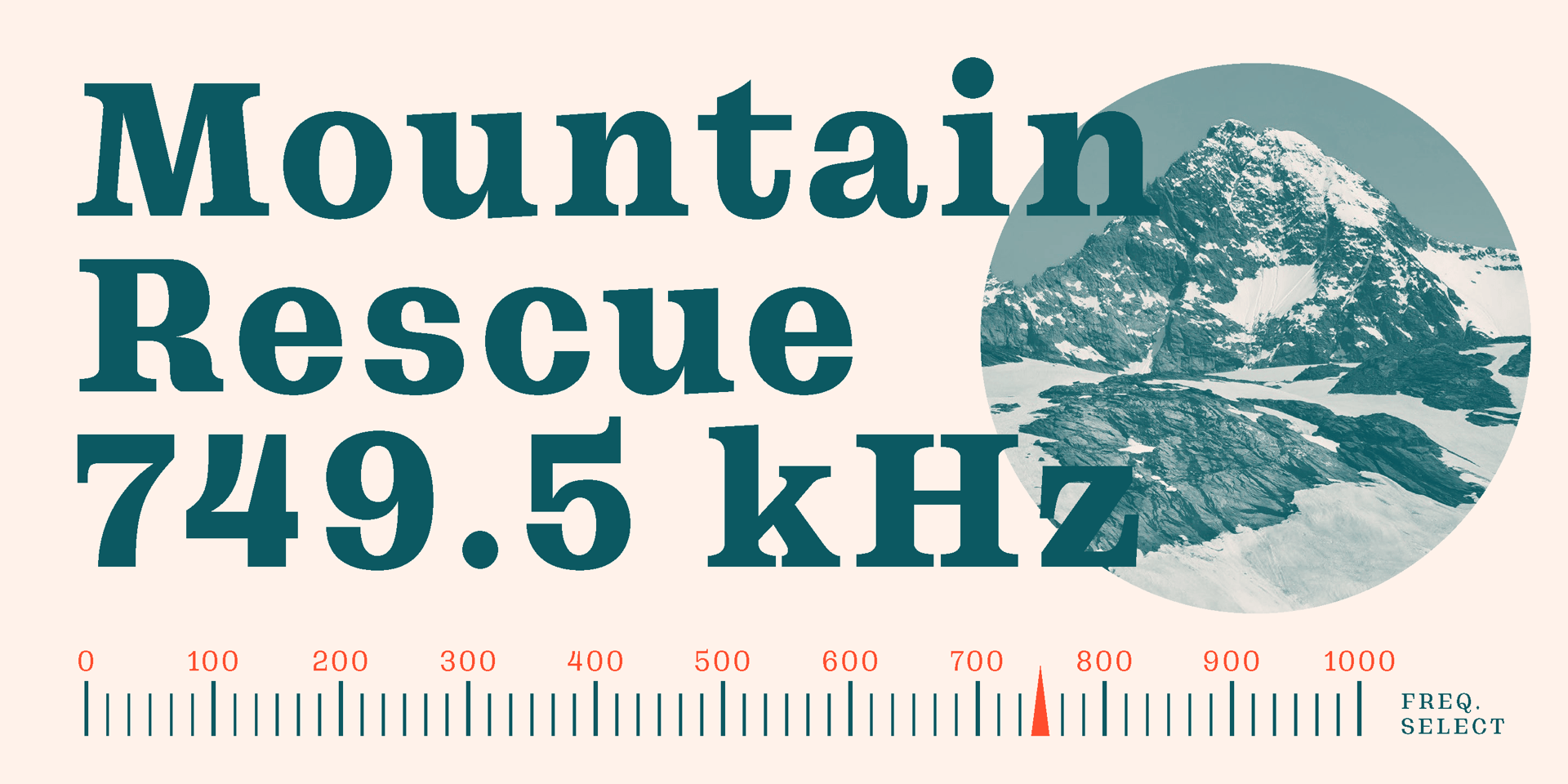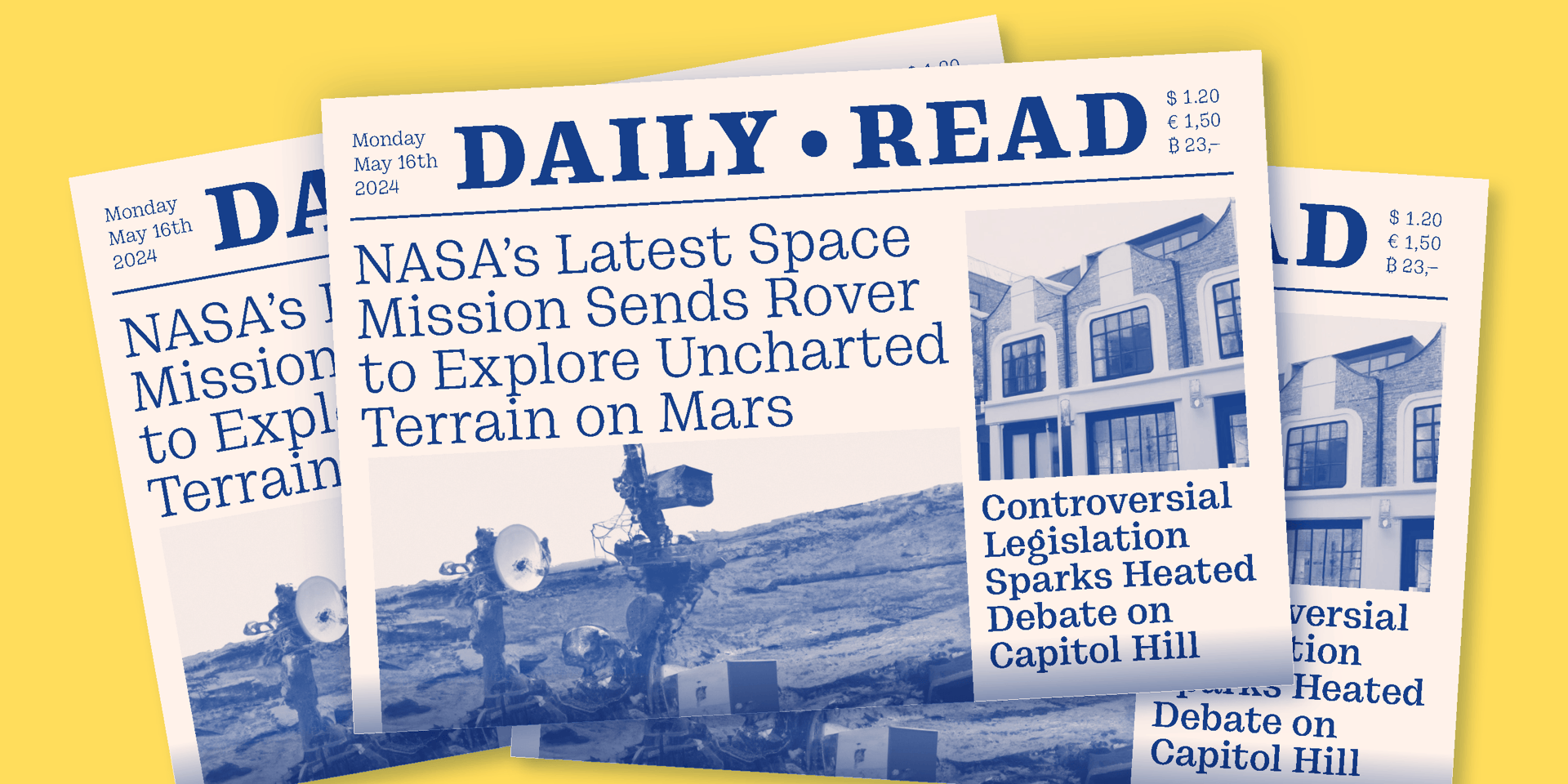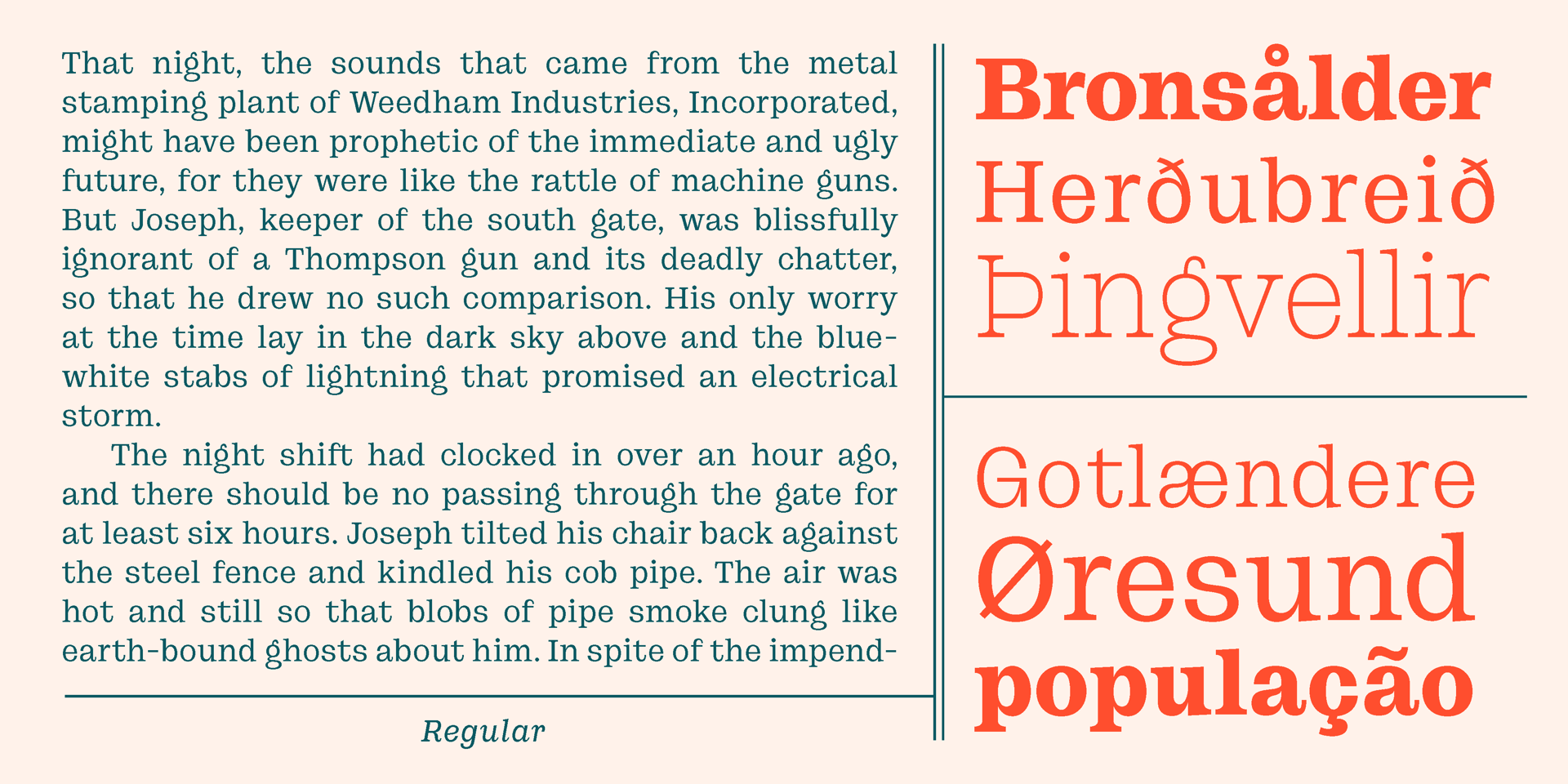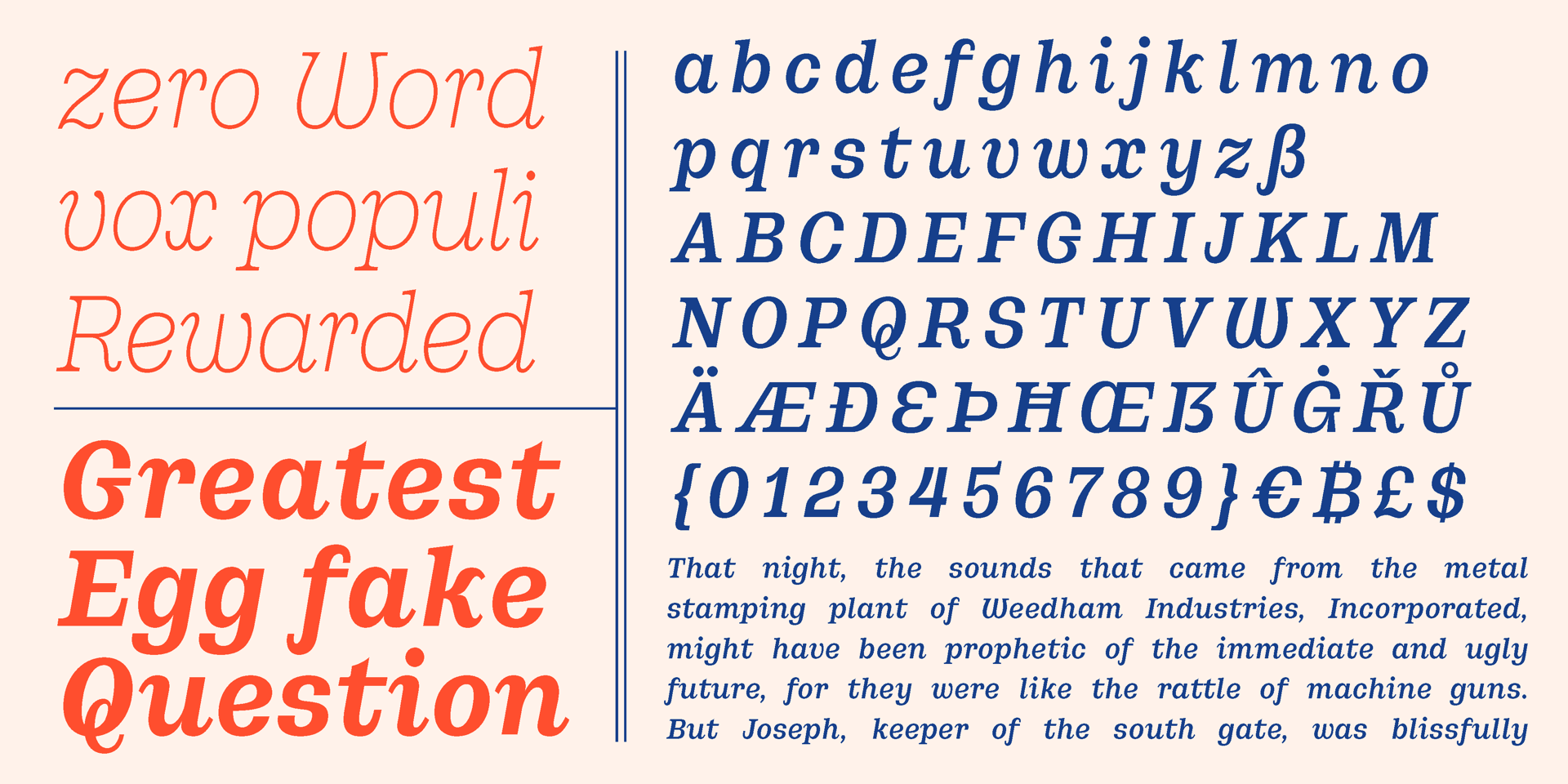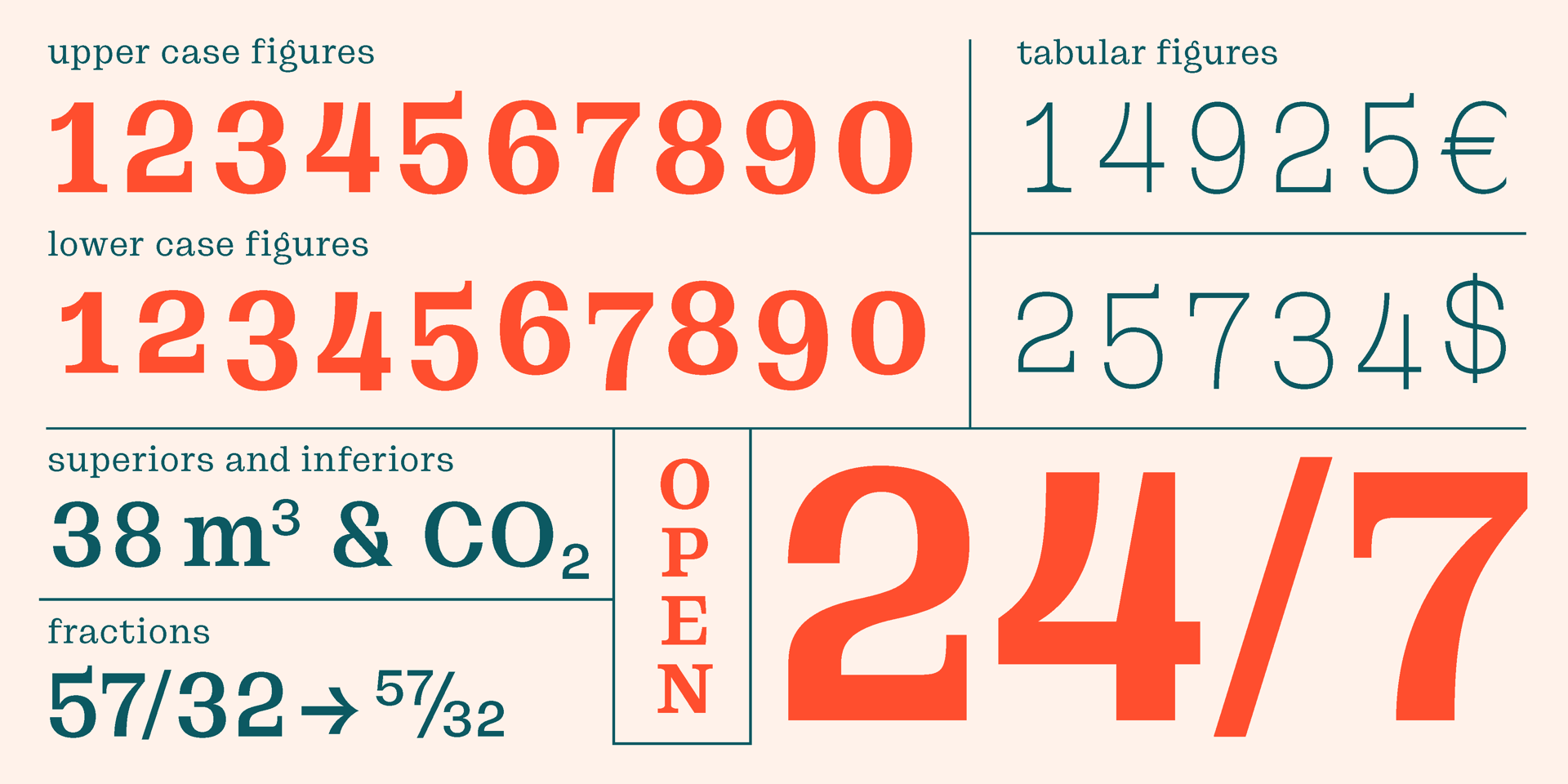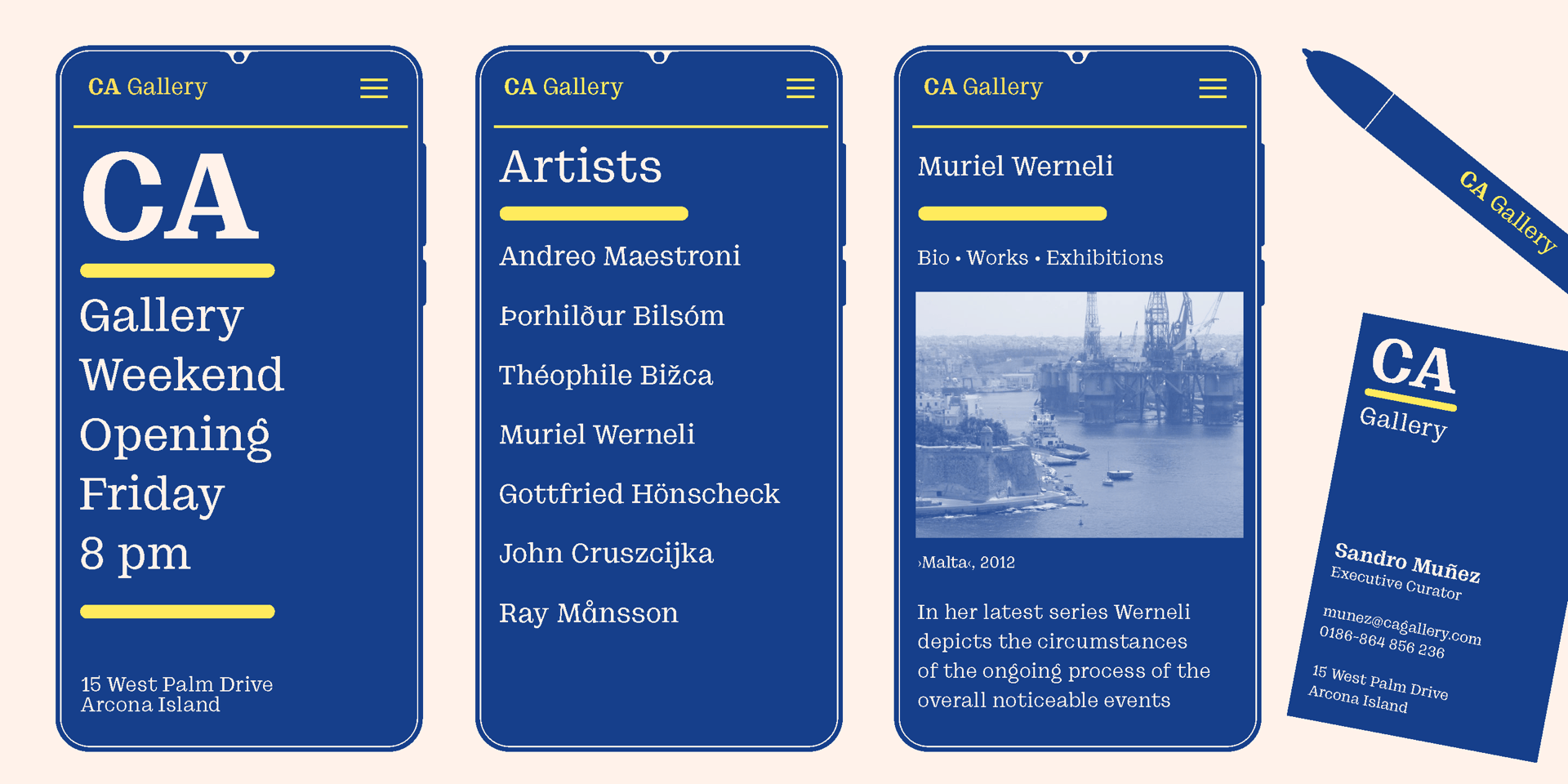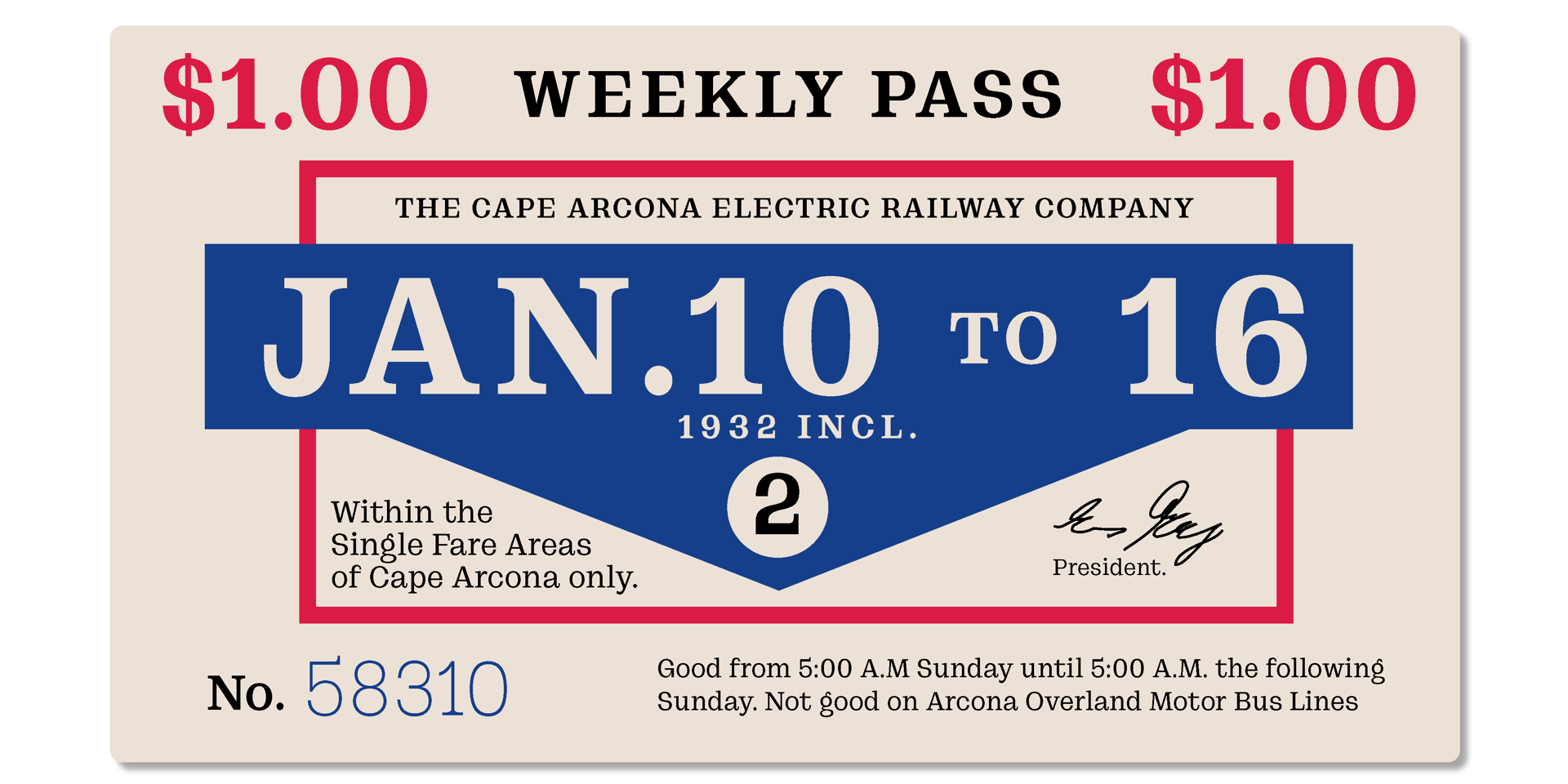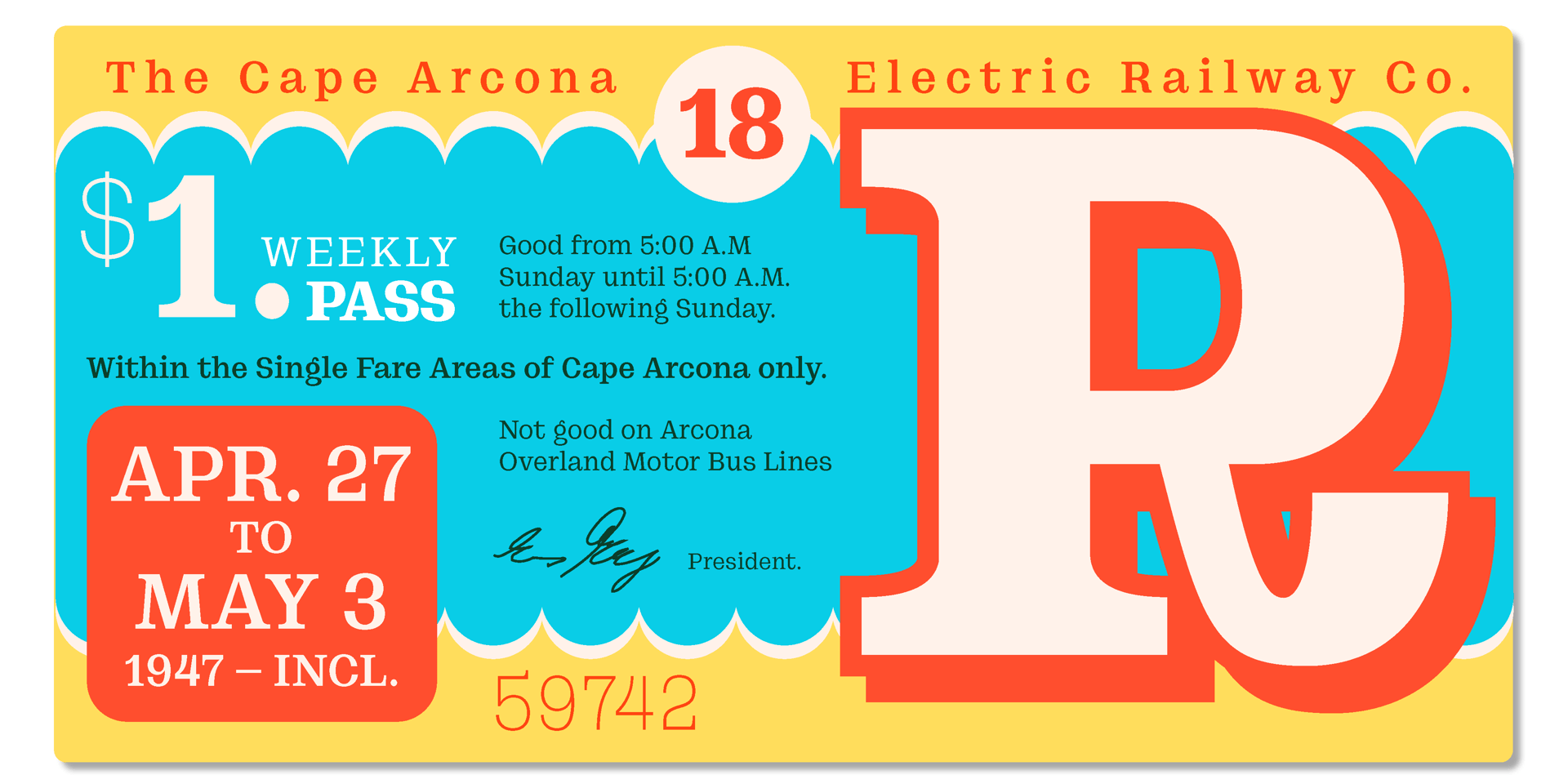
The CA Spotnik Serif is a distinctive serif typeface with no direct historical predecessors, which is particularly evident in the absence of traditional vertical serifs. This unique feature gives the font a modern and fresh appearance. However, there is still a clear influence from Scotch Serif fonts, especially in its elegant and distinctive italic variant, which carries a certain classic charm while maintaining a contemporary feel.
Plenty of stylistic alternates give you the opportunity to fine-tune your design and to adjust the flavor of the overall appearance. Arrows, superiors and inferiors, fractions, and many other OpenType functions are helpful for the most diverse typographical challenges.
As the name suggests, CA Spotnik Serif is an evolution of the CA Spotnik type family. While it shares a common origin with the Grotesque version, several key adjustments have been made to set it apart. The font has been designed to be narrower overall, which contributes to its clean, streamlined aesthetic. These design choices make it an excellent option for body text, offering a highly legible and pleasant reading experience. At first glance, the font may remind the viewer of other well-known typefaces such as Clarendon or Ionic, with their robust, timeless qualities. However, when set in larger sizes, the subtle differences that distinguish CA Spotnik from its historically influenced counterparts become much clearer, revealing its unique, contemporary character and style.